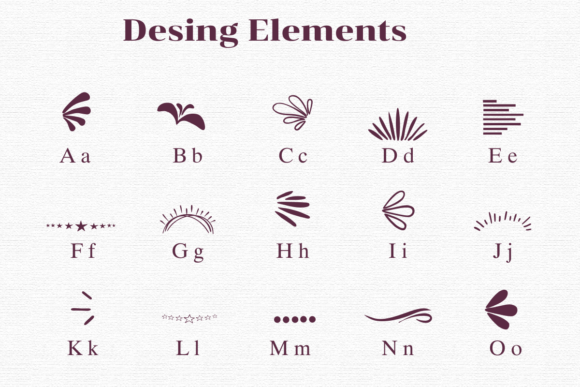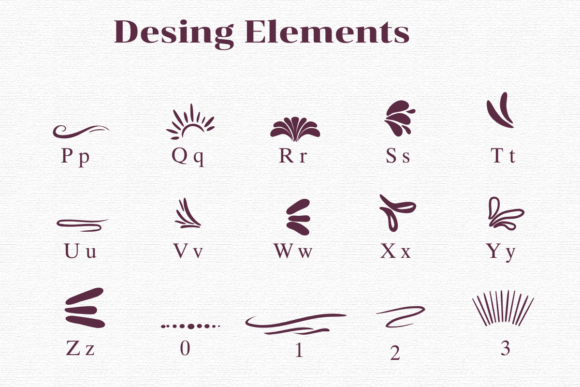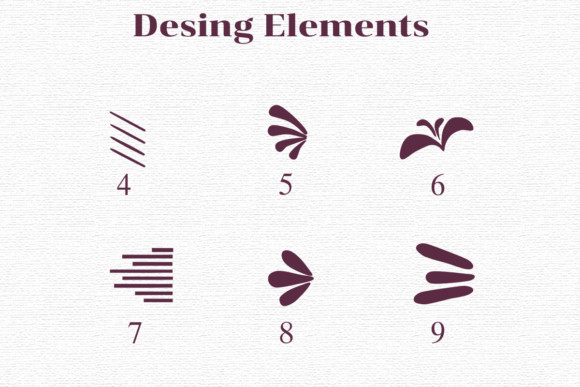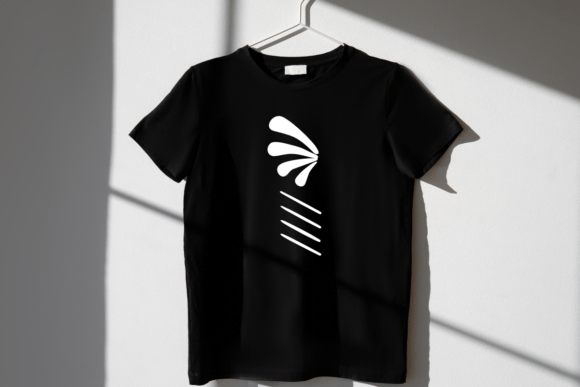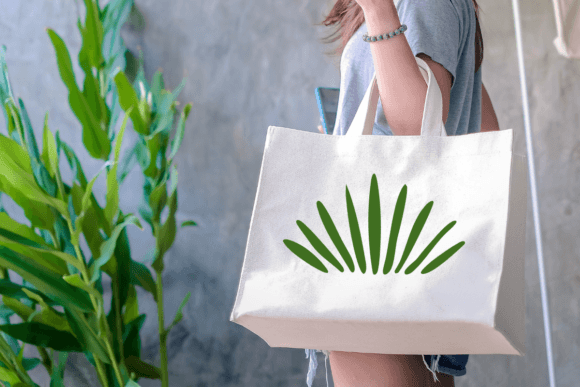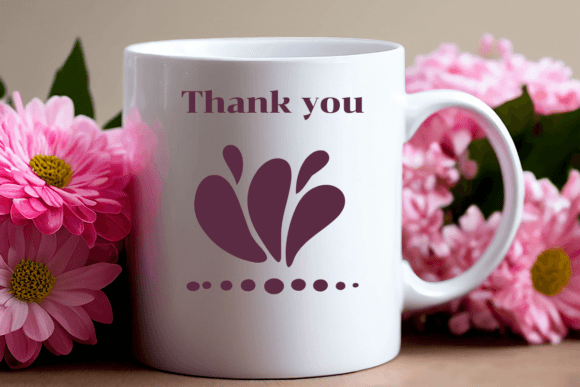
The Ultimate Design Element: Unleashing the Power of Design Elements Font
I’ll never forget the time I was working on a wedding invitation project, and I just couldn’t find the right font to match the theme. My client wanted something that looked like a hand-drawn sketch, but I was stuck with the usual serif and sans-serif fonts. That’s when I stumbled upon the Design Elements font, a dingbats font with a theme that perfectly captured the sketch style I was looking for. ✨
An Honest Review: What I Love and What I Don’t
The Good: ✨
- Unique and quirky design that adds a personal touch to any project ✅
- Perfect for creative projects like wedding invitations, DIY crafts, decorations, logos, and more
- Easy to use and navigate, even for those who are new to design
- Great for adding a hand-drawn or sketched feel to your designs
The Not-So-Good: 🤔
- Limited character set, which can be a bit restrictive ⚠️
- Not suitable for body text or long paragraphs, as it can be a bit too ornate
- May not work well with very formal or traditional designs
The Design Story Behind Design Elements Font
Design Elements font was created by a team of designers who wanted to create a unique and quirky font that would add a personal touch to creative projects. The font was inspired by traditional dingbats and hand-drawn illustrations, with a modern twist. The designers wanted to create a font that would be perfect for wedding invitations, DIY crafts, decorations, logos, and more.
Q: What is Design Elements font?
A: Design Elements font is a dingbats font with a theme that features a sketch style. It’s perfect for creative projects like wedding invitations, DIY crafts, decorations, logos, and more.
Q: Is Design Elements font easy to use?
Q: Can I use Design Elements font for body text?
A: No, Design Elements font is not suitable for body text or long paragraphs. It’s best used as a decorative font for headings, titles, or accents.